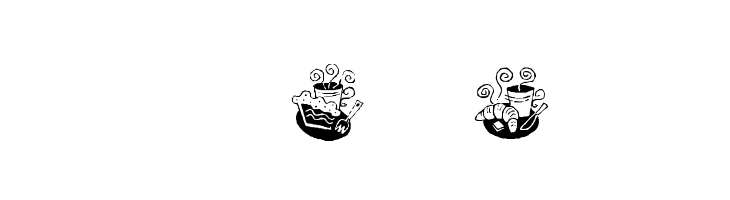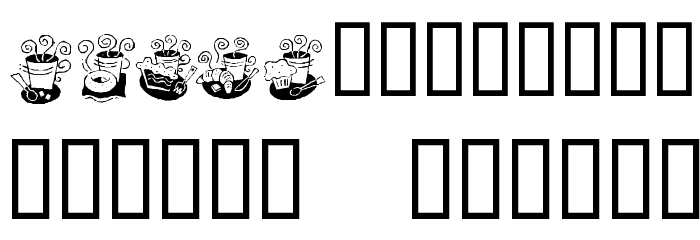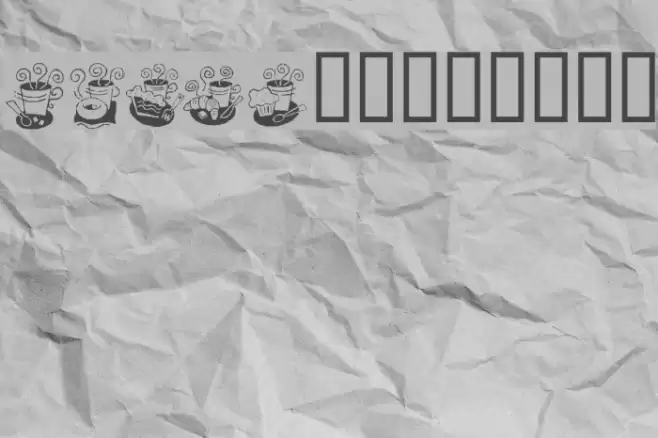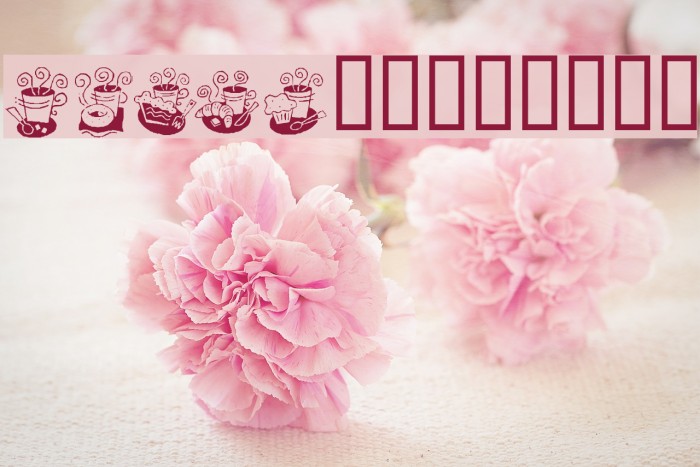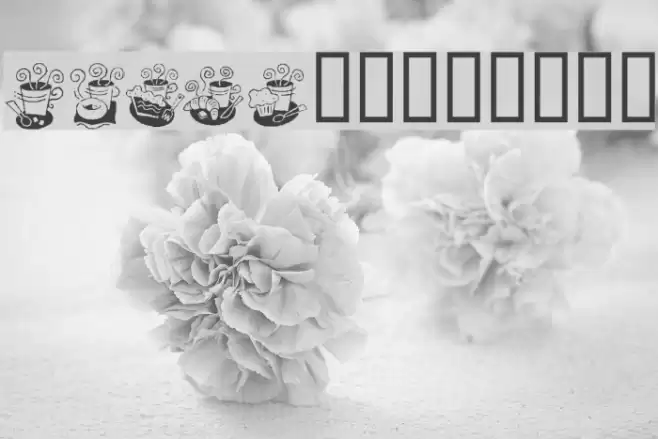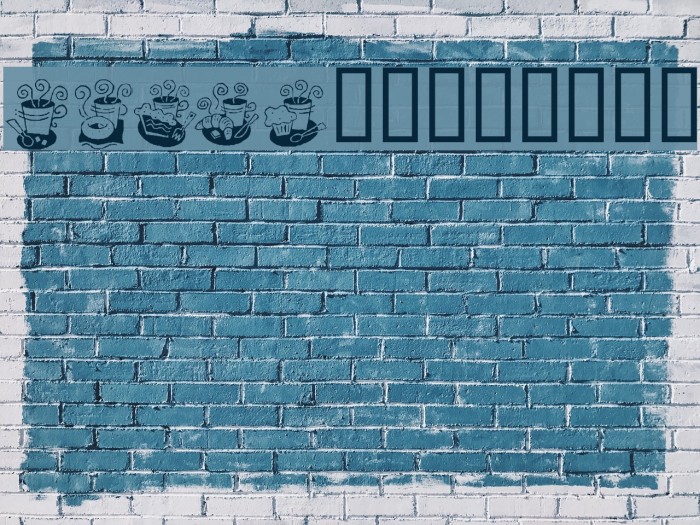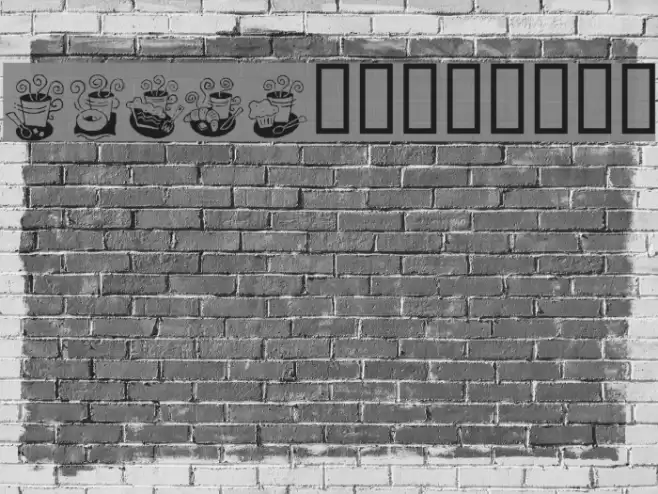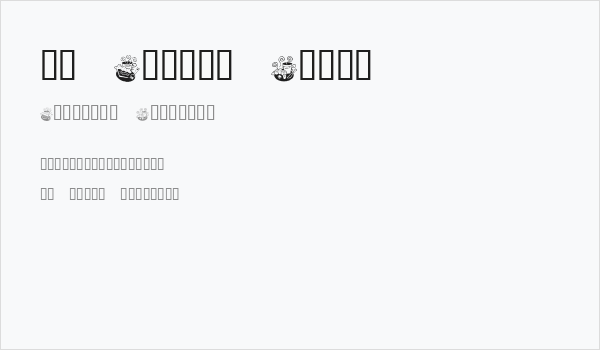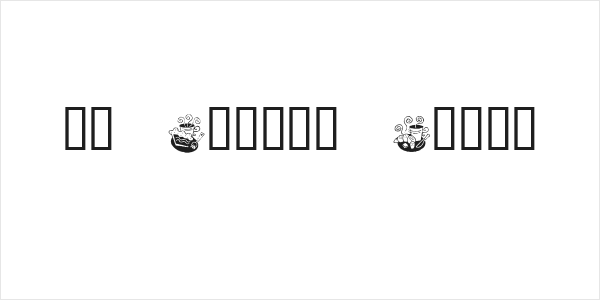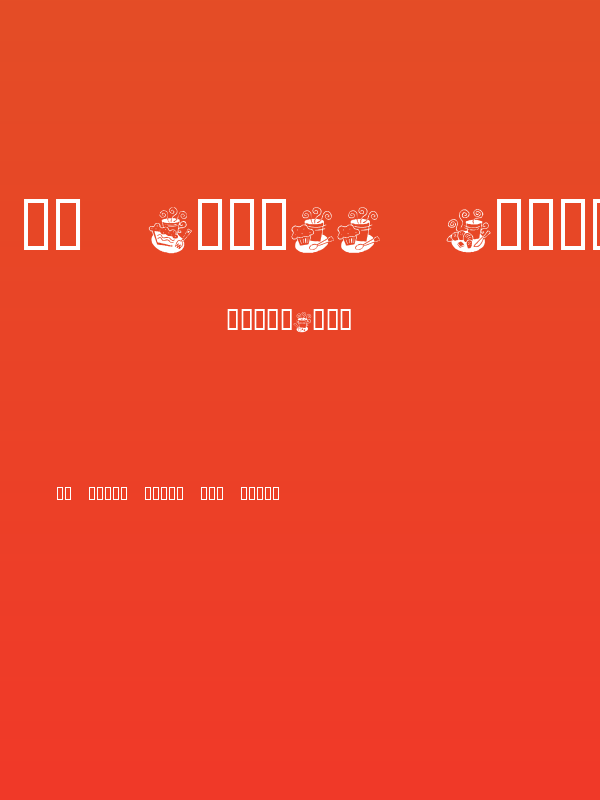
KR Coffee Dings Font
KR Coffee Dings Description
This is a decorative dingbat font featuring whimsical coffee-themed illustrations. Each character is represented by a unique coffee-related image, such as steaming cups, pastries, and coffee beans. The style is playful and artistic, with intricate details and a hand-drawn feel. The images are bold and clear, making them suitable for various creative projects. The font does not include traditional alphanumeric characters, focusing solely on these themed illustrations.
| Use Case | Logos, Decorative elements |
| Proposed Projects | Ideal for cafe menus, coffee shop branding, event invitations, or any design project that seeks to incorporate a fun, coffee-related theme. |